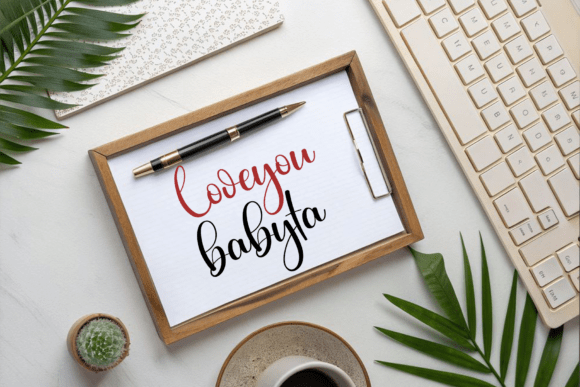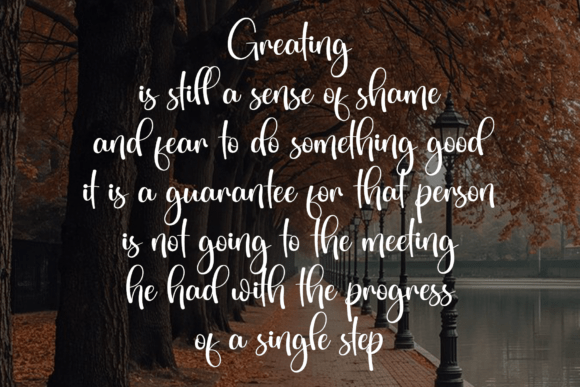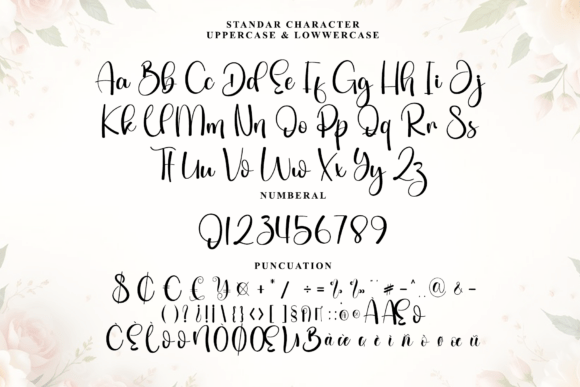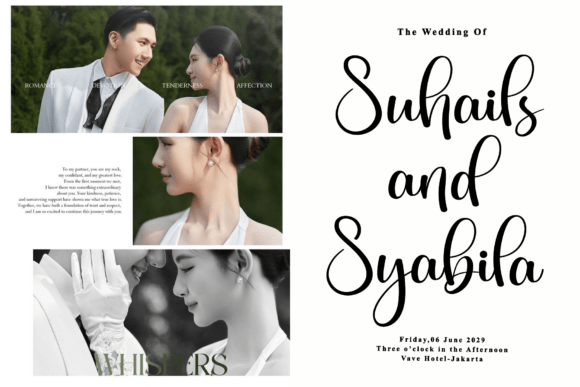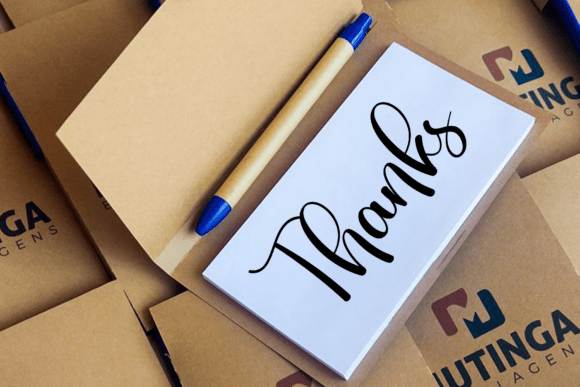
The Easter Font: A Sophisticated Script for Creative Projects
I still remember the design project that led me to discover the Easter font. I was working on a branding project for a boutique bakery, and I needed a font that would convey a sense of warmth, elegance, and artisanal quality. After hours of searching, I stumbled upon Easter, and it was love at first sight. The sweeping, looping ascenders and the warm, organic aesthetic instantly resonated with my design vision.
An Honest Review of Easter Font
- ✨ Elegant and sophisticated design that’s perfect for high-end branding projects
- ✅ Excellent for artisanal food branding, boutique product packaging, and upscale lifestyle marketing
- ✅ The looping ascenders add a touch of whimsy and artisanal flair to any design
- ✅ Supports OpenType features, glyphs, and stylistic alternates for added versatility
While Easter font is an excellent choice for many design projects, it’s not without its limitations. Here are a few quirks to keep in mind:
- ⚠️ The font can be a bit challenging to read at small sizes, so it’s best used for headlines or titles.
- 🤔 Some users may find the looping ascenders a bit too ornate for certain design projects.
Easter font was designed with the intention of capturing the essence of artisanal craftsmanship and elegance. The designer, who wishes to remain anonymous, drew inspiration from traditional calligraphy and hand-lettering techniques. The result is a font that’s both sophisticated and rhythmic, making it perfect for high-end branding projects.
Q: What is the Easter font best used for?
A: Easter font is best used for artisanal food branding, boutique product packaging, upscale lifestyle marketing, and creative editorial titles.
Q: Is Easter font suitable for body text?
A: No, Easter font is best used for headlines or titles. It’s not recommended for body text due to its ornate design and limited readability at small sizes.